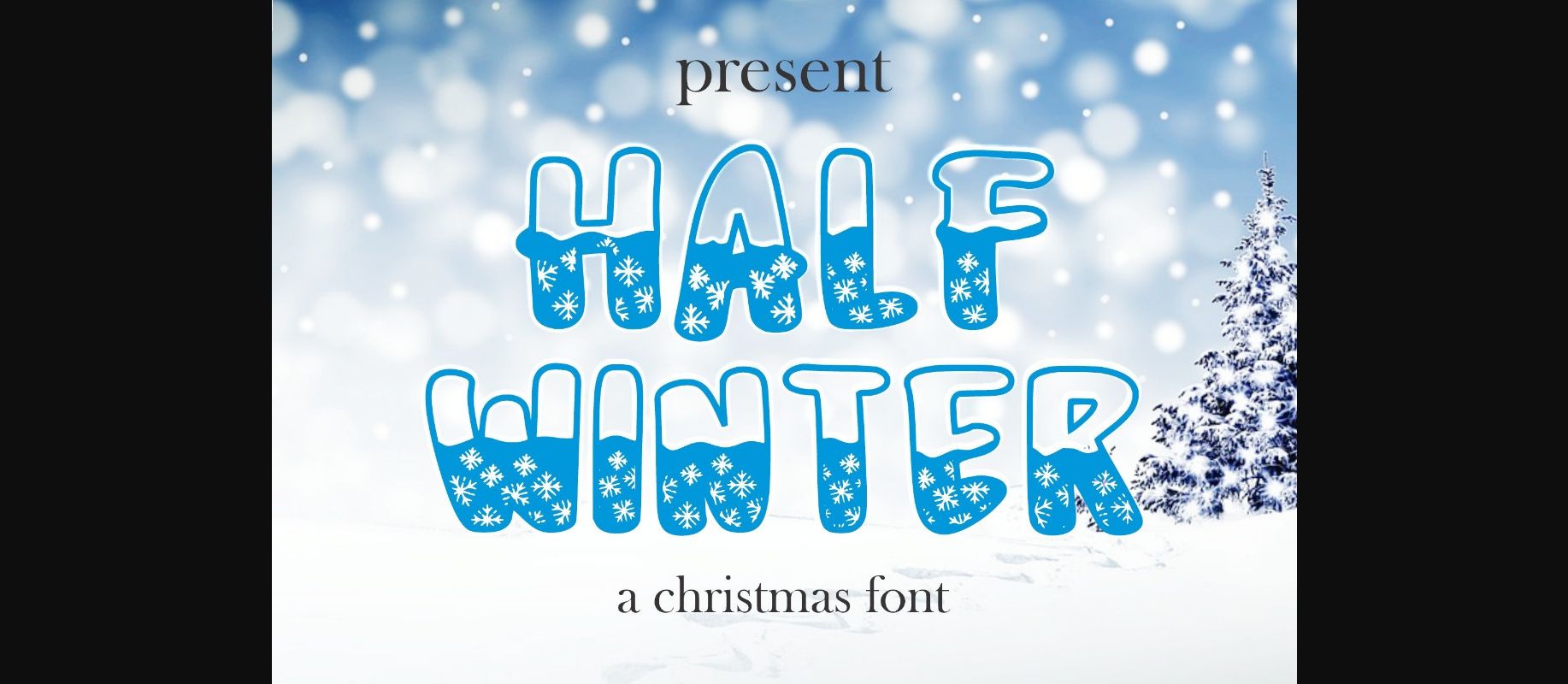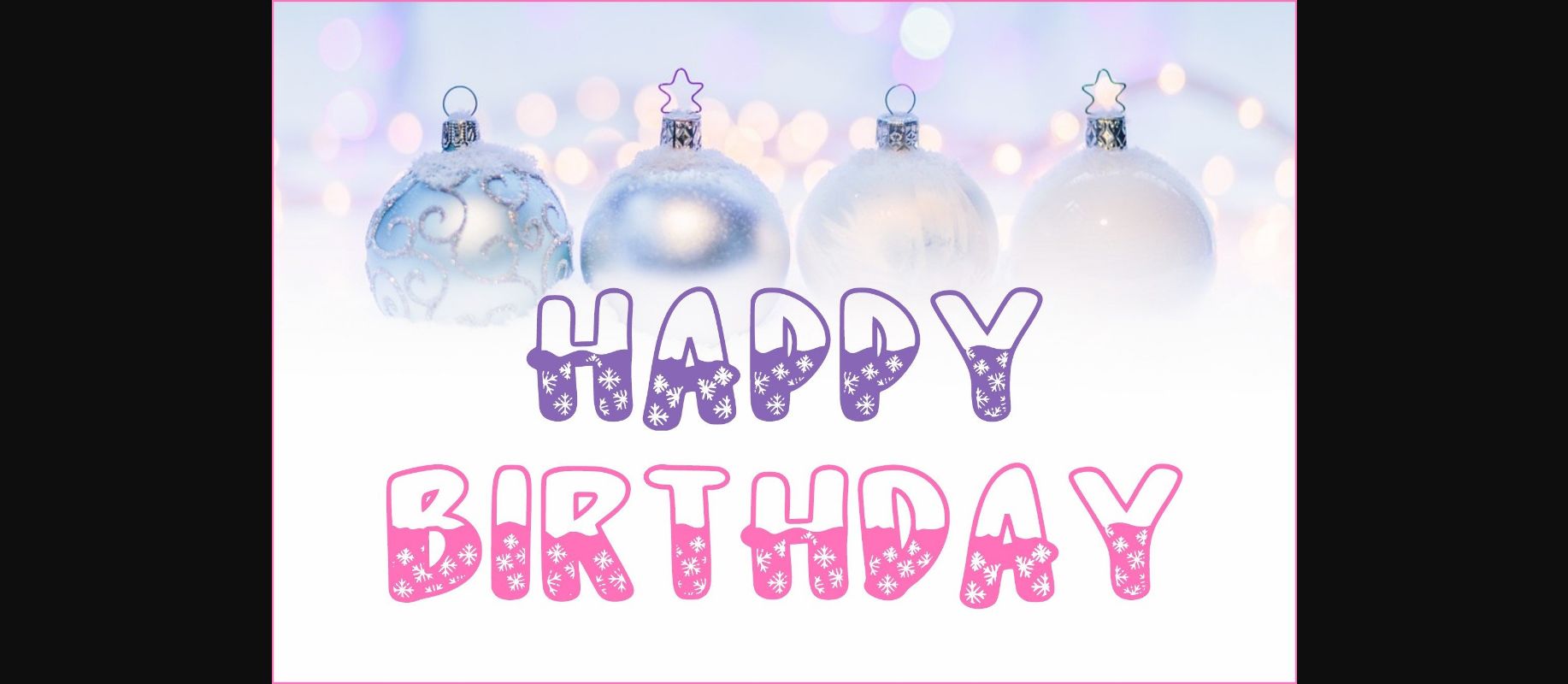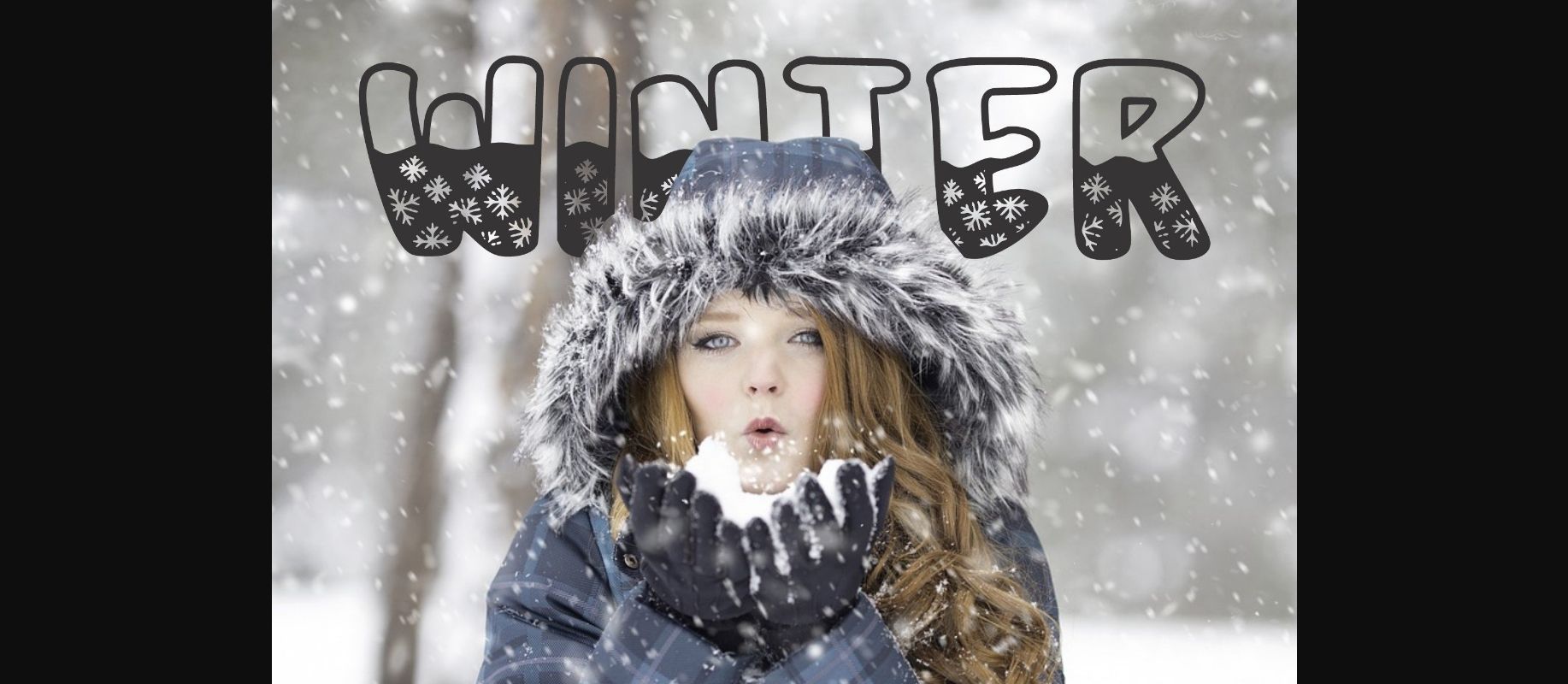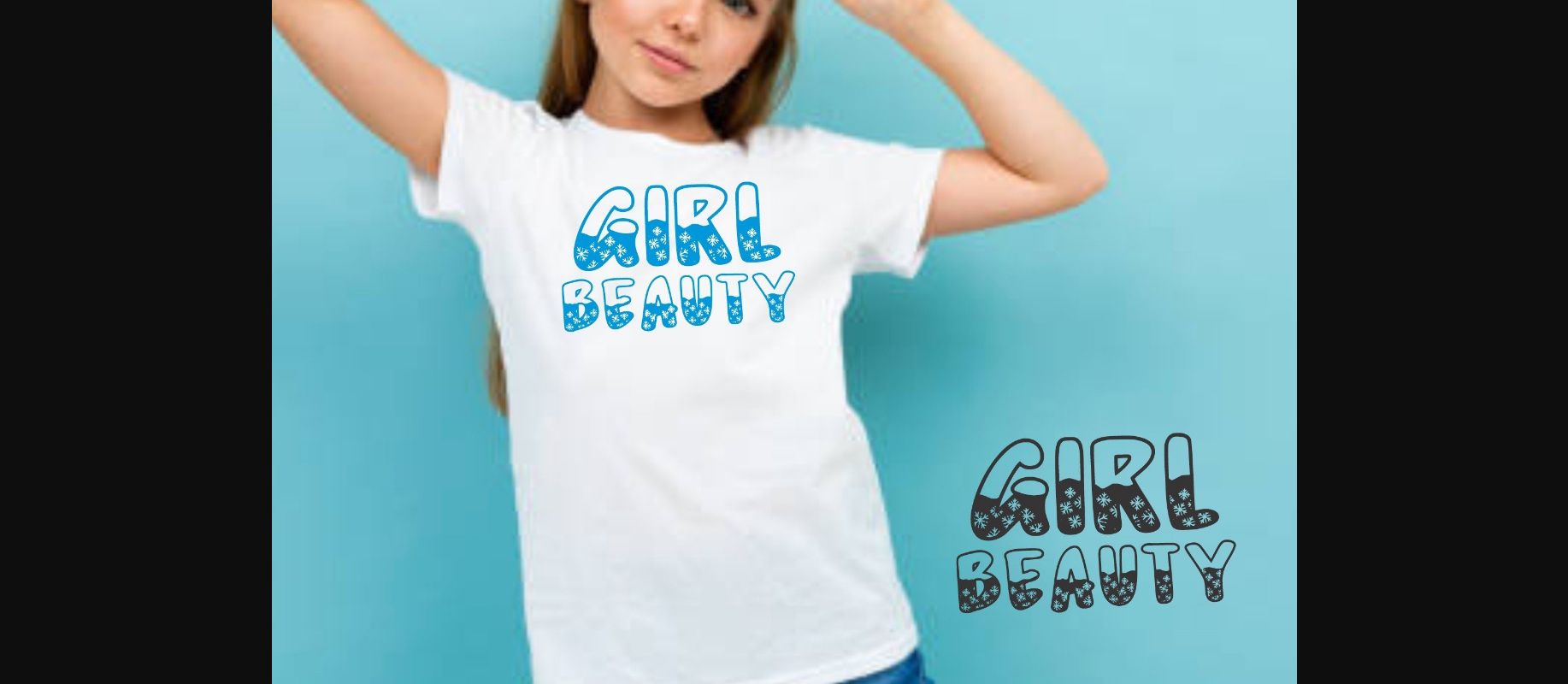
About Half Winter Font
Half Winter is a unique winter-themed decorative font. This typeface will be a great asset to your font library, as it has the potential to enhance any creation!